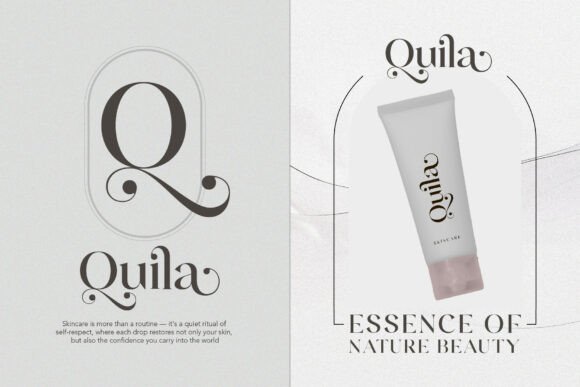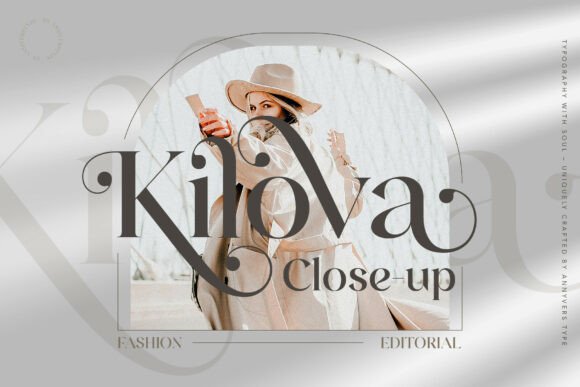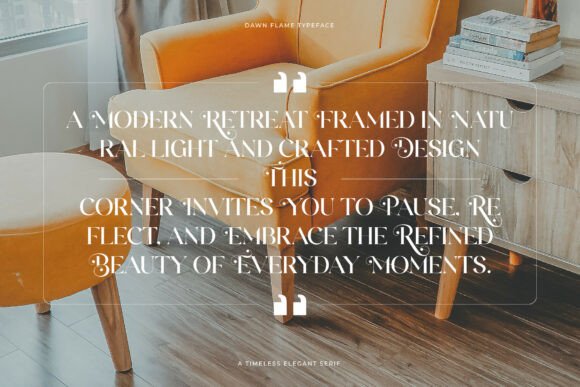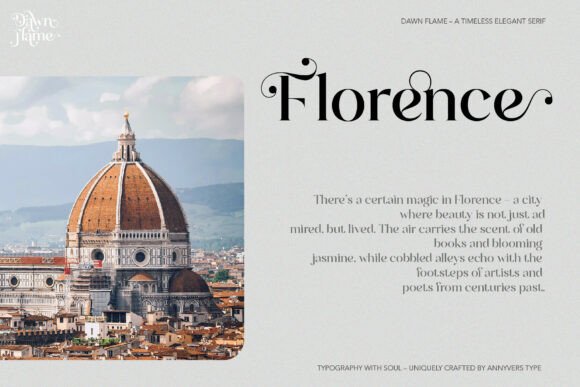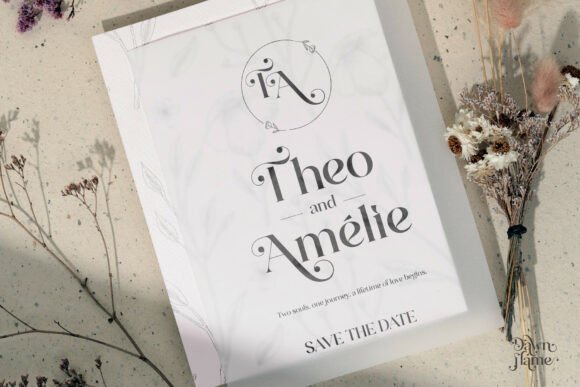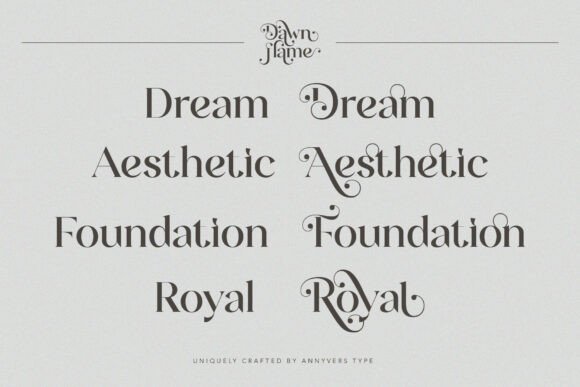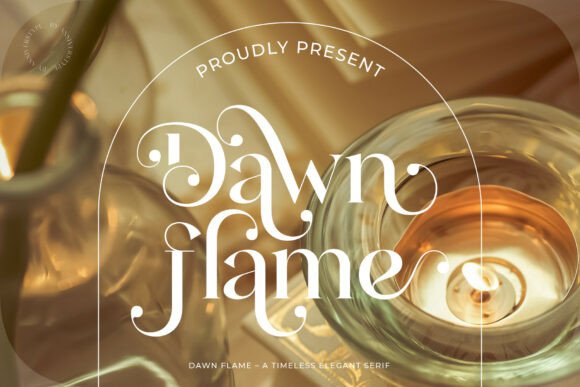
Introducing Dawn Flame Font: Elevate Your Design with Timeless Elegance
In the world of typography, a font can make or break the visual identity of a brand, product, or event. For designers and crafters seeking to create high-end visuals with a touch of sophistication, the Dawn Flame font is an exceptional choice. This high-class serif font seamlessly blends timeless elegance with artistic flair, making it perfect for beauty branding, editorial design, premium packaging, and romantic event invitations.
The Art of Dawn Flame Font
DAWN FLAME is more than just a font – it’s an experience. Its swirling terminals, luxe curves, and balanced contrasts create a sense of luxury and refinement. Each character is meticulously sculpted with grace, ensuring that your typography transcends to a cinematic experience. The font’s sophisticated, soft-touch serif style is ideal for elevating high-end visuals, making it a go-to for designers and crafters who want to create stunning, high-end designs.
Key Features of Dawn Flame Font
• Beautiful Ligatures and Stylistic Alternates: DAWN FLAME comes with an array of beautiful ligatures and stylistic alternates, allowing you to add a touch of elegance and sophistication to your typography.
• High Contrast and Artistic Details: The font’s high contrast and artistic details make it perfectly suited for creating memorable headlines, distinct logos, and compelling visual compositions.
Ideal Applications for Dawn Flame Font
The Dawn Flame font is an excellent choice for a wide range of design applications, including:
• Boutique Branding: Create a luxurious brand identity with DAWN FLAME’s sophisticated, high-end feel.
• Editorial Spreads: Elevate your editorial design with the font’s elegant, refined aesthetic.
• Wedding Stationery: Add a touch of romance and sophistication to your wedding invitations and stationery.
• Luxury Packaging: Create premium packaging that exudes elegance and refinement.
The Power of Dawn Flame Font
The Dawn Flame font offers a character that is both powerful and feminine, communicating a message of style and class. Its unique blend of elegance and artistic flair makes it an exceptional choice for designers and crafters seeking to create high-end visuals. Whether you’re designing for beauty brands, editorial publications, or romantic events, DAWN FLAME is the perfect font to elevate your typography and create a lasting impression.
Why Choose Dawn Flame Font?
With the Dawn Flame font, you can:
• Elevate Your Typography: Add a touch of sophistication and elegance to your typography.
• Create Memorable Headlines: Use the font’s high contrast and artistic details to create memorable headlines and distinct logos.
• Communicate Style and Class: Convey a message of style and class with the font’s powerful and feminine character.
In conclusion, the Dawn Flame font is an exceptional choice for designers and crafters seeking to create high-end visuals with a touch of sophistication. Its timeless elegance, artistic flair, and range of features make it perfect for a wide range of design applications. Whether you’re designing for beauty brands, editorial publications, or romantic events, DAWN FLAME is the perfect font to elevate your typography and create a lasting impression.